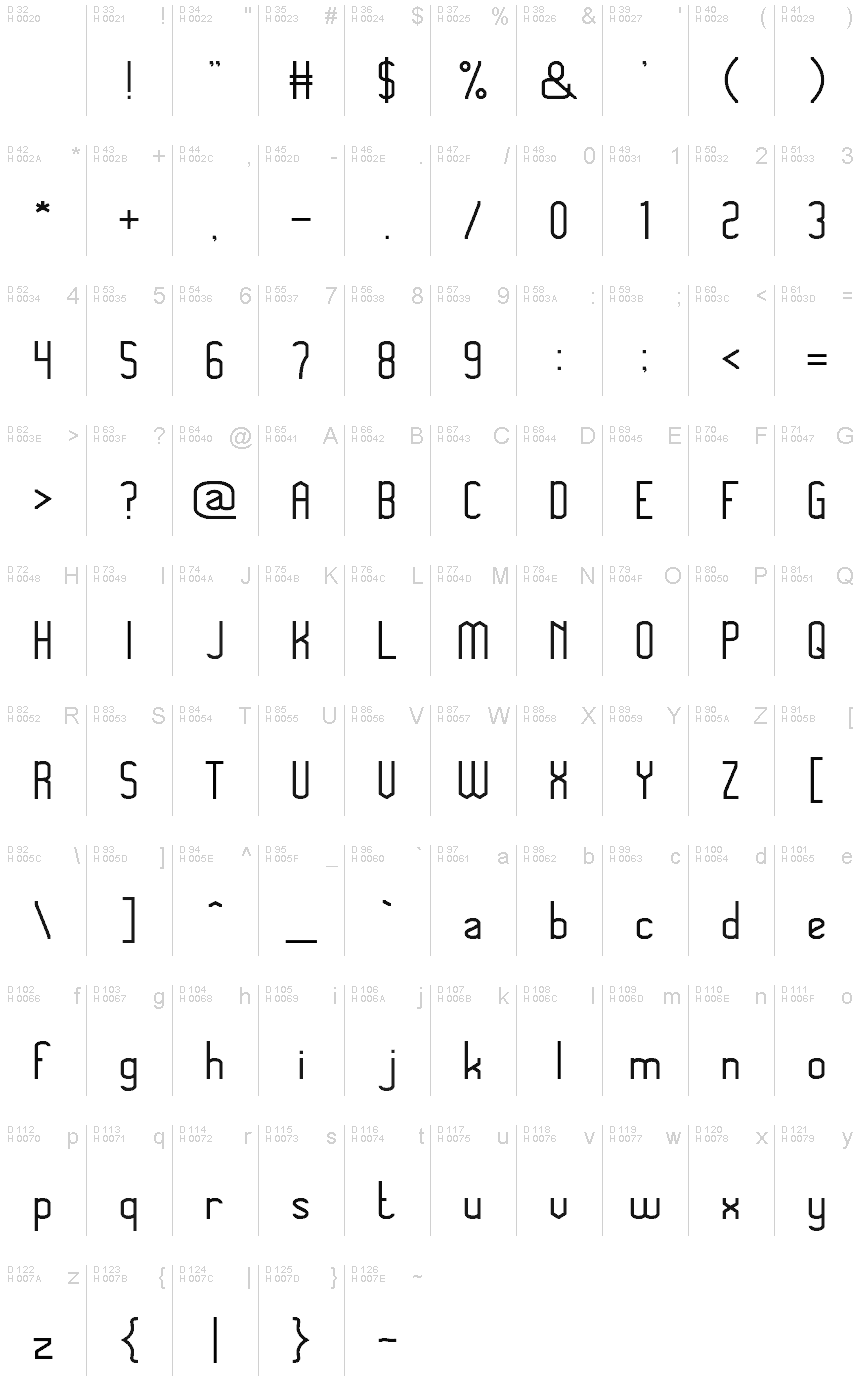
Megapolitan Jakarta-thin
Megapolitan Jakarta Thin, a creation by Weknow, exudes a sleek and modern aesthetic. This minimalist font boasts clean lines, sharp edges, and a delicate stroke width, emanating a sense of sophistication and elegance. Its refined appearance lends itself well to a variety of design applications, from editorial layouts to branding and digital interfaces.
Megapolitan Jakarta's versatility allows it to seamlessly integrate into diverse design contexts. Its understated yet impactful presence makes it a suitable choice for headlines, titles, and display text, where it can effectively capture attention and convey a sense of modernity. Additionally, the font's legibility and streamlined letterforms make it a practical selection for body copy, ensuring a smooth and effortless reading experience.